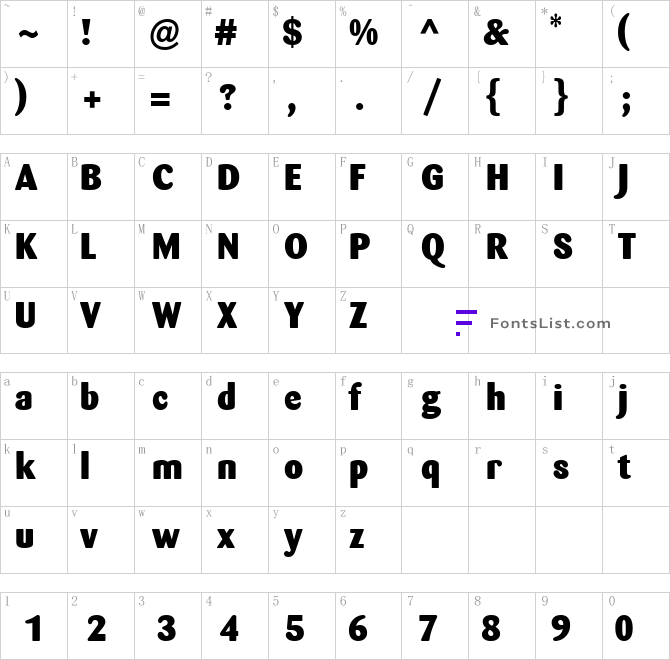
Barmeno-Extra-Bold.ttf is a very beautiful artistic font, Barmeno-Extra-Bold.ttf is widely used in the design and printing of various books and pictures,Barmeno-Extra-Bold.ttf has a strong visual impact,Barmeno-Extra-Bold.ttf is a commonly used font in newspapers, magazines and books, and is used in posters, e-commerce Poster design, store design, logo design, font design and other fields.Barmeno-Extra-Bold.